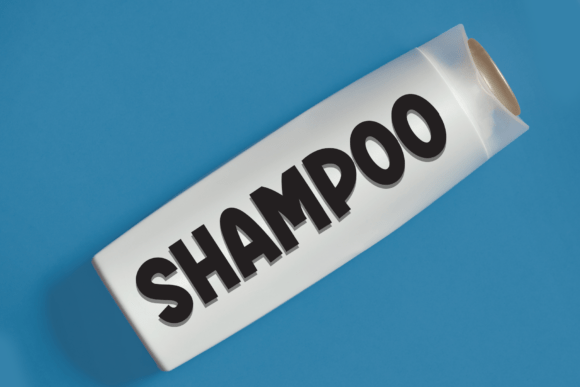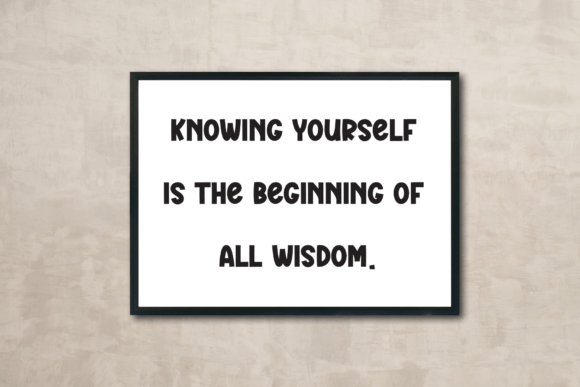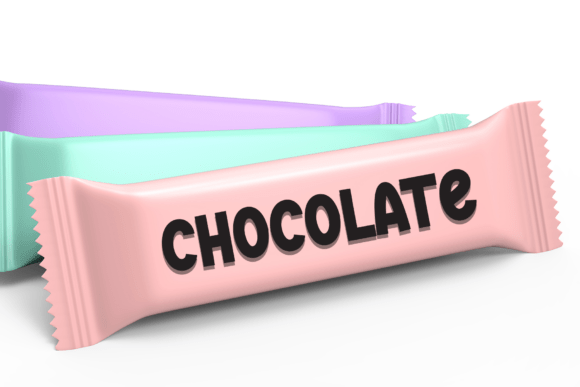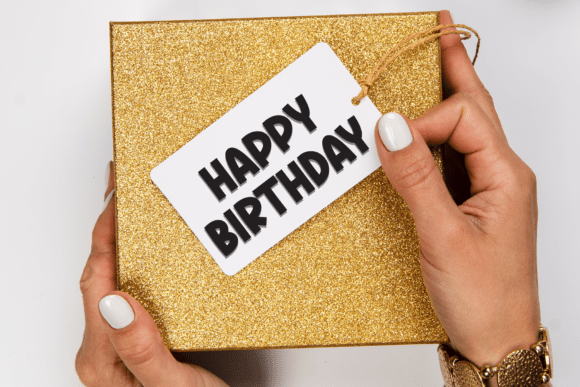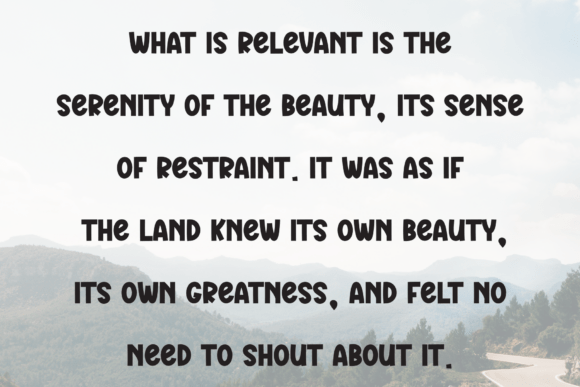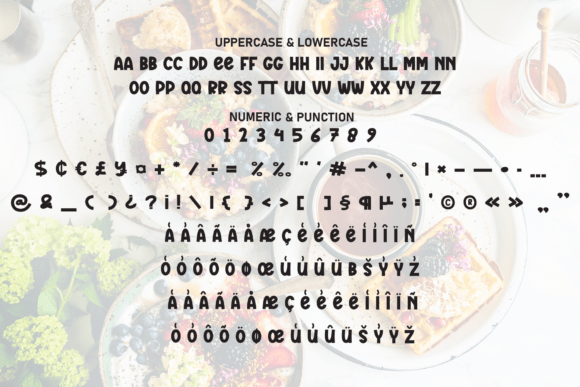
Breaking the Mould with Break Fast Font
You know that moment when you’re sipping your morning coffee, scrolling through your social media feed, and suddenly, a beautiful design catches your eye? That’s exactly the vibe Break Fast Font is going for – a fresh, friendly, and approachable aesthetic that makes you feel like you’re starting your day off right.
Break Fast Font is a casual and neat display font designed to add charm and clarity to your projects, from packaging and posters to social media graphics. With clean lines and a relaxed structure, it’s the perfect choice for designers who want to create a polished and inviting look without compromising on creativity.
Whether you’re a seasoned designer or just starting out, Break Fast Font is a valuable addition to your toolkit. Its versatility and friendly nature make it an ideal choice for a wide range of projects, from branding and marketing materials to editorial and lifestyle content.
Break Fast Font Key Features
- Font Family: Break Fast Font is a modern sans-serif font family designed for digital use.
- Character Set: Includes a comprehensive character set, including Latin, Cyrillic, and Greek alphabets, as well as punctuation and symbols.
- Unique Characteristics: Break Fast Font features a unique blend of clean lines, geometric shapes, and subtle rounded edges, creating a friendly and approachable feel.
Break Fast Font Review
Overall, I think Break Fast Font is an interesting choice for designers looking for a unique, modern sans-serif typeface. ✨ Here are some aspects where it truly shines:
- Distinctive letterforms: The font’s bold, geometric lines and rounded edges give it a clean, contemporary feel that’s perfect for modern branding.
- Legibility: Break Fast Font is surprisingly easy to read, even at smaller font sizes, making it suitable for digital applications.
- Style versatility: This font works well in a variety of contexts, from headers to body text, and can be paired with a range of other fonts to create a unique visual identity.
- Limited language support: Break Fast Font may not be the best choice for multilingual projects, as it doesn’t support many non-Latin scripts.
- Not ideal for small text: While the font is legible, it’s not the best choice for small text sizes, where the bold lines can become overwhelming.
Overall, Break Fast Font is a solid choice for designers who want to add a touch of modernity to their projects. With some careful consideration of its limitations, it can be a great addition to any design toolbox.
The Break Fast Font is ideal for creating eye-catching headings and titles in various designs. Some common use cases include:
- Coffee shop menus and branding
- Food blog and recipe design
- Restaurant and cafe signage
For optimal results, use the Break Fast Font in combination with high-quality images and a clean, modern design aesthetic.
Open Sans is a clean and modern sans-serif font. It’s ideal for digital designs, such as websites and mobile apps, where legibility is crucial. Compared to Break Fast Font, Open Sans has a more minimalist feel and is highly legible even at small font sizes.
Lato is a modern sans-serif font with a friendly feel. It’s suitable for designs that require a balance between modernity and approachability. Compared to Break Fast Font, Lato has a more rounded feel and is perfect for designs that need a human touch.
Montserrat is a geometric sans-serif font inspired by the urban environment of Buenos Aires. It’s ideal for designs that require a strong, modern feel. Compared to Break Fast Font, Montserrat has a more urban feel and is perfect for designs that need a strong, industrial aesthetic.